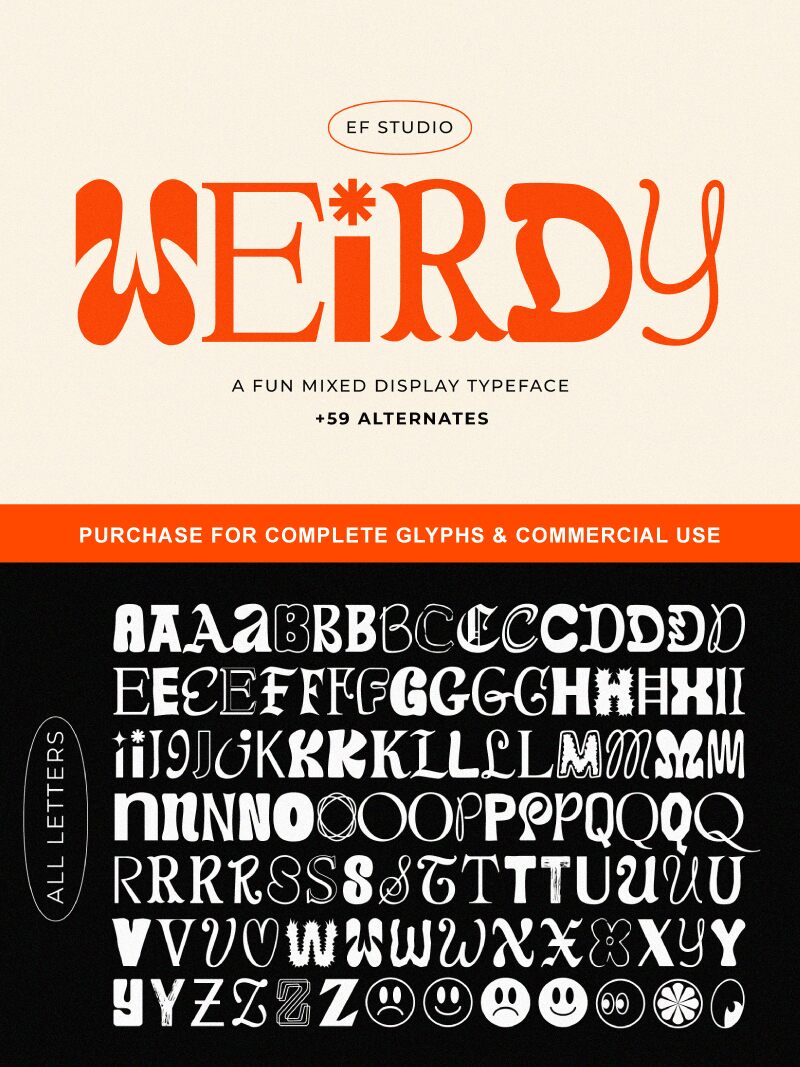
Weirdy font by Ef Studio is a whimsical, decorative display typeface that exudes quirky charm and artistic flair. Its highly decorative design is distinctively unconventional, making a statement with every word written and instantly drawing attention. With its imaginative style, it stands out from any other, bringing playful energy to visual projects.